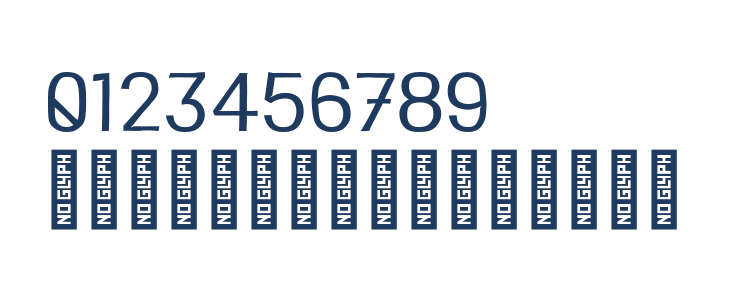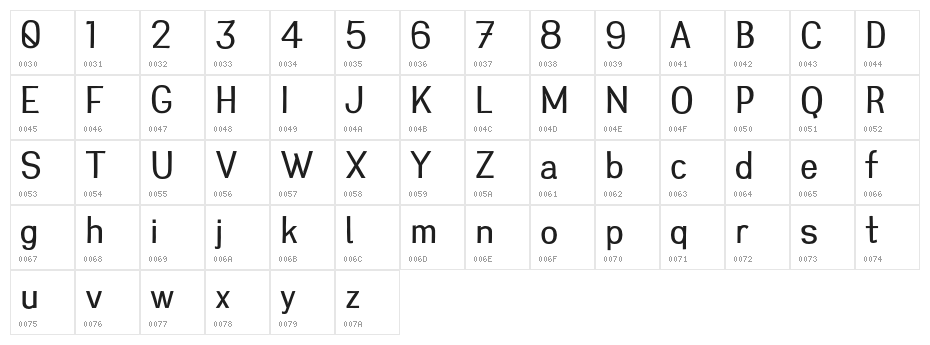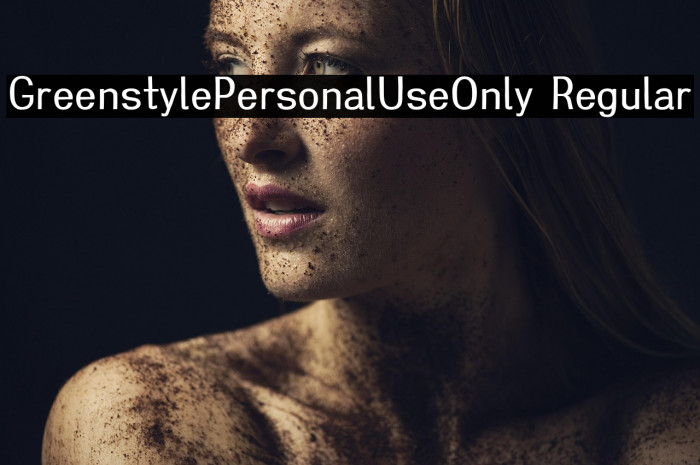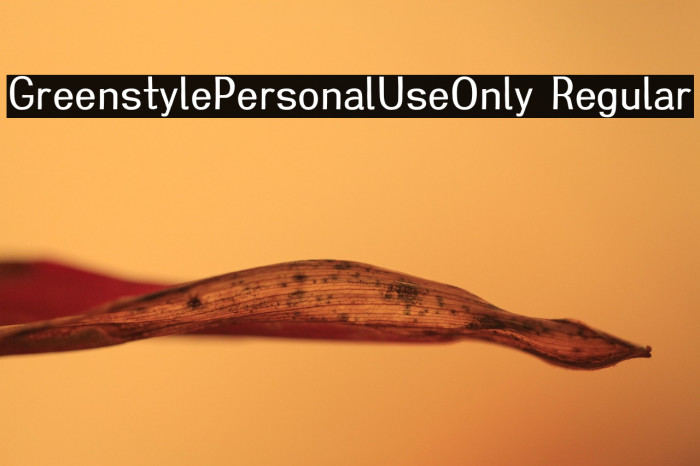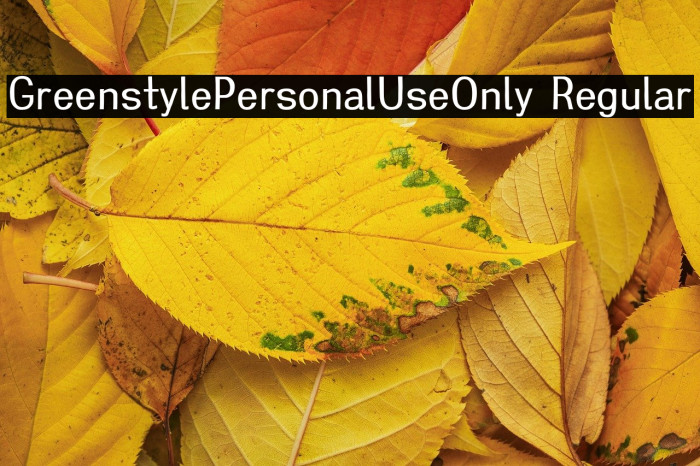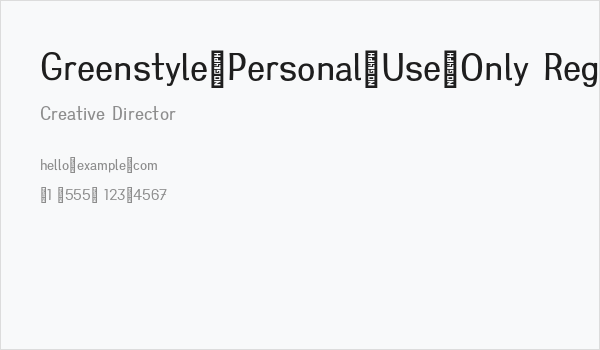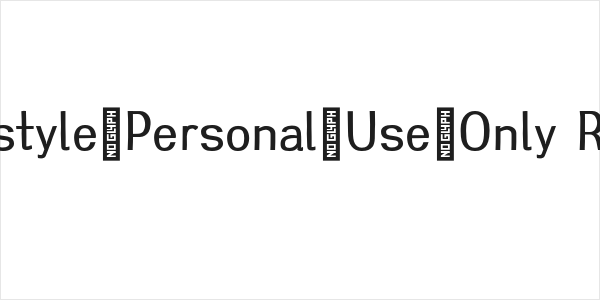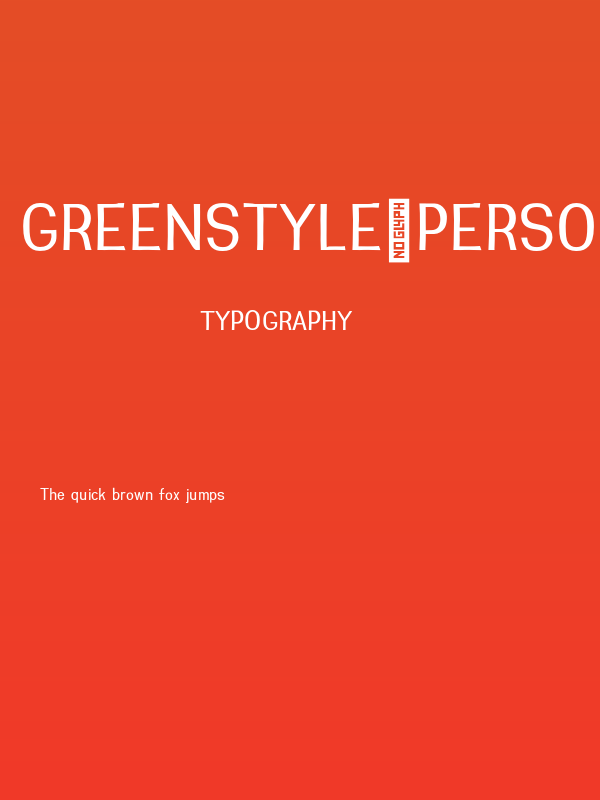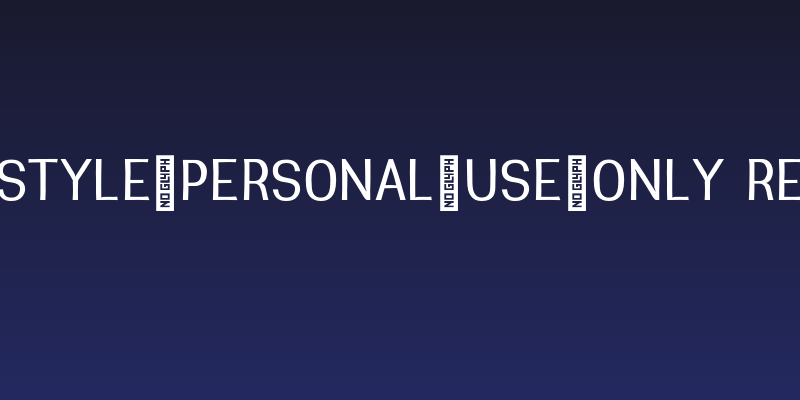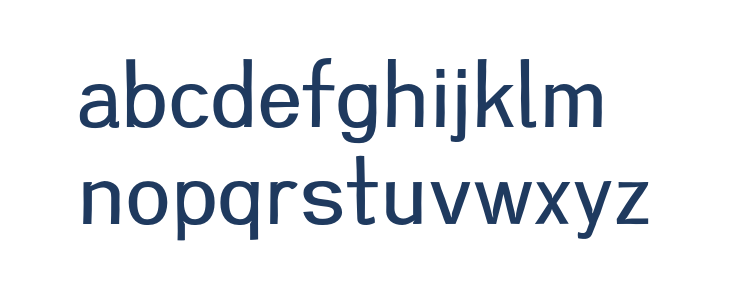
Greenstyle-Personal-Use-Only Regular Font
Greenstyle-Personal-Use-Only Regular Description
This font features a clean and modern sans-serif style with a straightforward and legible appearance. The uppercase and lowercase letters are well-proportioned, maintaining a consistent stroke width throughout. The numerals are clear and easy to read, making them suitable for various applications. The absence of serifs gives it a contemporary feel, while the uniformity in character height and width ensures readability. The font lacks any decorative elements, focusing on simplicity and functionality, which makes it versatile for both digital and print media.